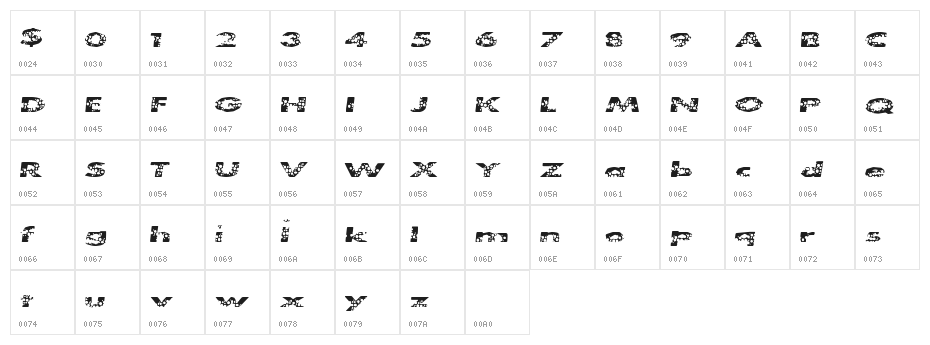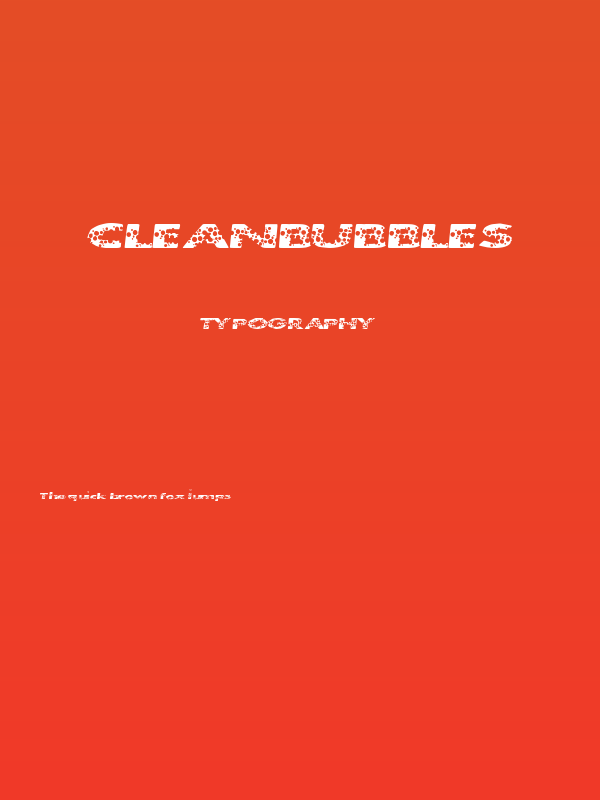
CleanBubbles Font
CleanBubbles Description
This font features a playful and unique design, characterized by its bubble-like patterns that fill each letter. The bold, rounded shapes are interspersed with circular cutouts, creating a dynamic and eye-catching texture. The font maintains a consistent weight across all characters, offering a uniform appearance. Its whimsical style makes it ideal for creative projects that require a fun and engaging visual element. The letters are evenly spaced, ensuring readability while maintaining the decorative aspect. This font is perfect for projects that aim to capture attention and convey a sense of joy and creativity.
| Overall Style | Playful, Whimsical |
| Proposed Projects | Ideal for children's books, party invitations, playful branding, and creative posters. |